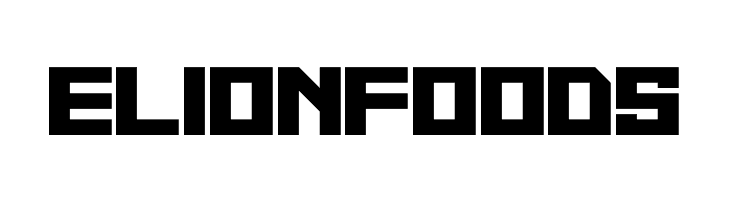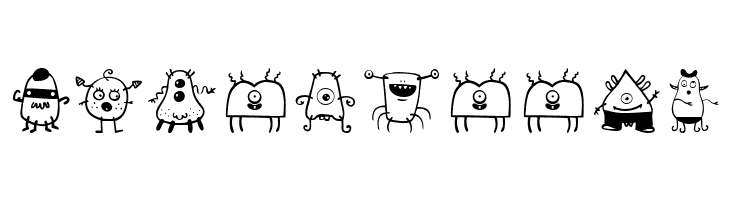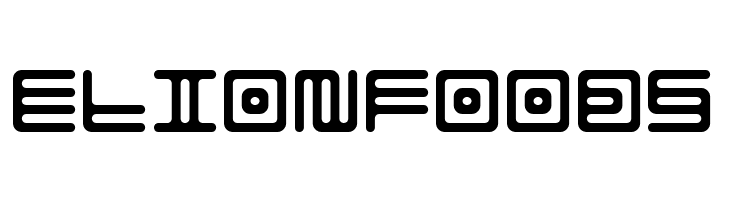
A decorative font with abstract, alien-like shapes and molecular designs.
A futuristic, geometric font with bold, rounded edges and a double-line effect.
Playful hand-drawn alien and monster character font.
Whimsical hand-drawn font with unique alien and monster illustrations.
A bold, geometric font with a futuristic and modern design.
A futuristic, segmented font with a digital, tech-inspired design.
A bold, geometric font with a futuristic and digital aesthetic.
Whimsical alien face icons used as letter and symbol glyphs.